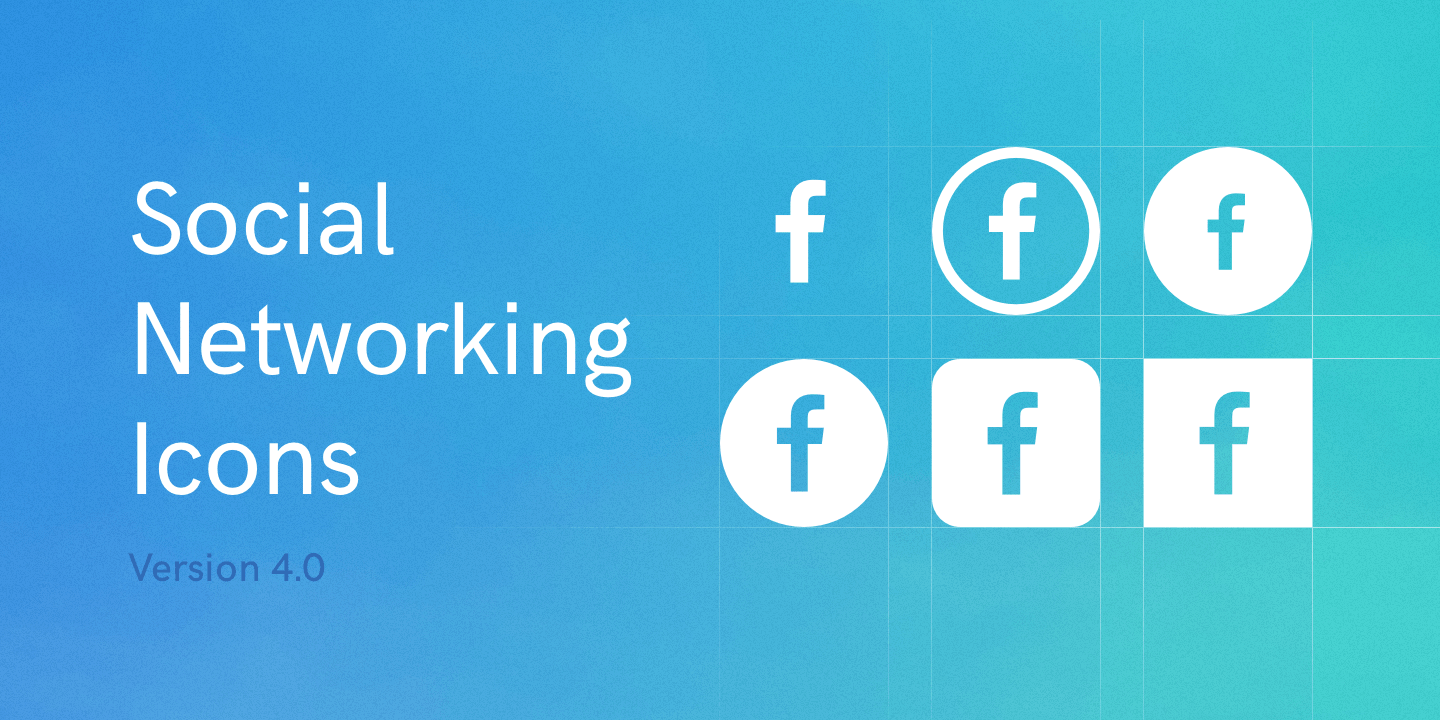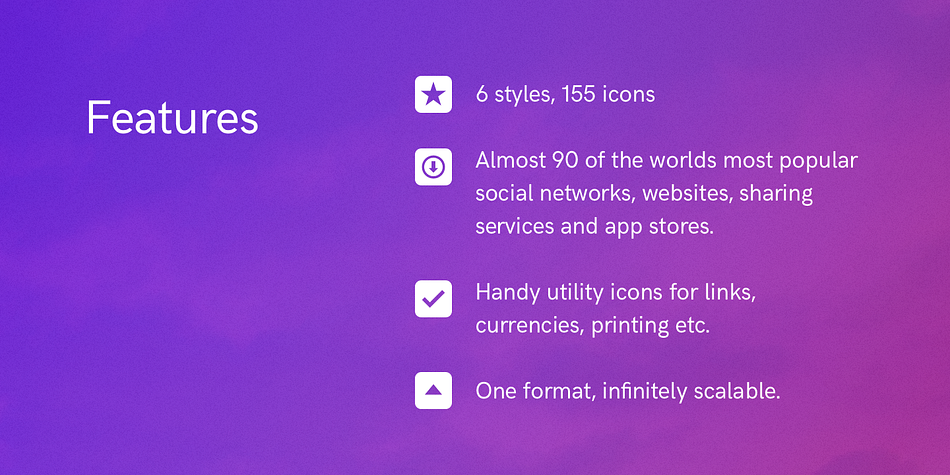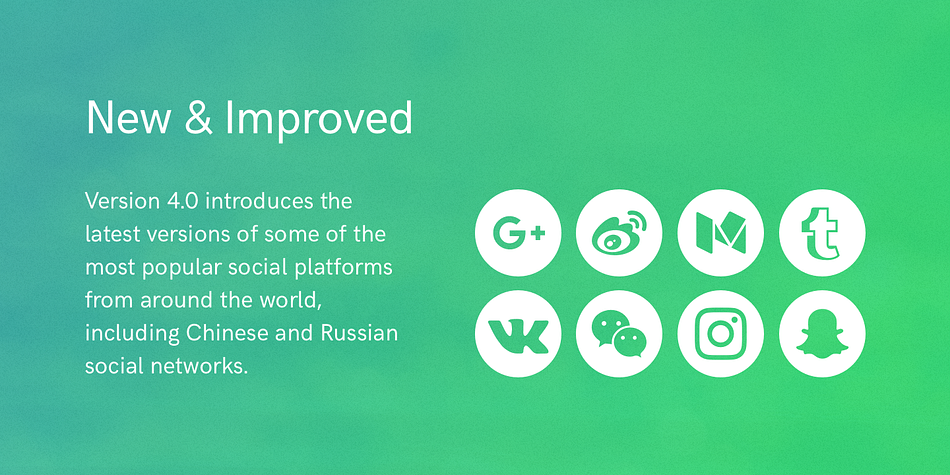
Social Networking Icons is a dingbat font family. This typeface has six styles and was published by Matt Grey Design.
The Social Networking Icons font family has been designed to simplify the process of routinely loading and pasting social icons around, for both print and on the web – reducing server load and saving time. They are great for embedding in webpages or for use on product packaging, posters, flyers and other marketing materials.
v4.0 Is out now with multiple improvements and updates on most icons, ready for 2017.